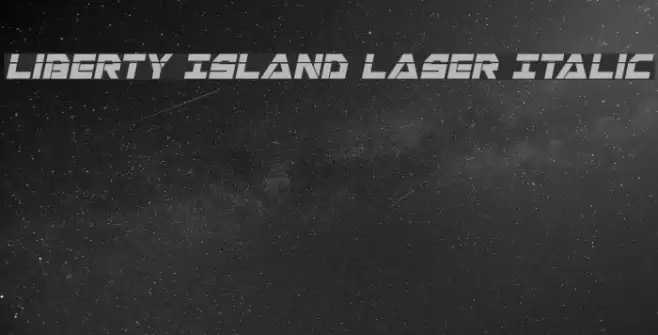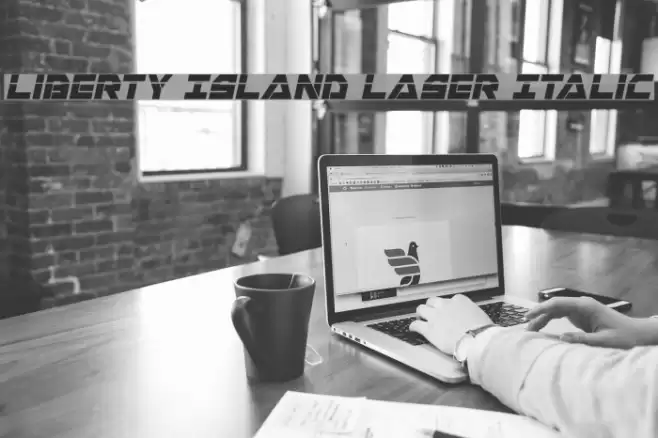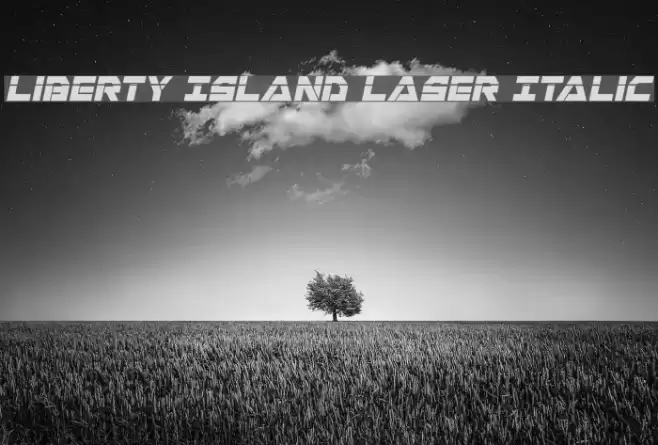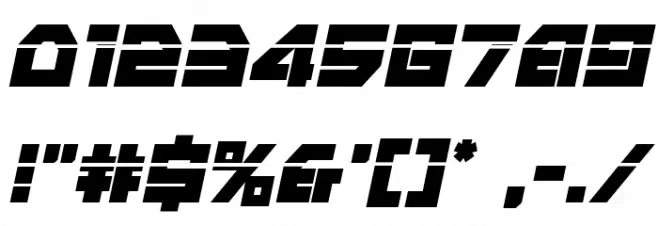
Liberty Island Laser Italic Font
Liberty Island Laser Italic Description
This font features a bold, futuristic design with angular, geometric shapes that give it a dynamic and energetic appearance. The characters are italicized, adding a sense of motion and speed. The sharp edges and distinct cuts within each letterform create a striking visual impact, making it ideal for attention-grabbing designs. The uppercase and lowercase letters maintain a consistent style, while the numerals and special characters complement the overall aesthetic. The font's unique style is reminiscent of digital or sci-fi themes, making it suitable for modern and tech-oriented projects.
A bold, futuristic italic font with angular, geometric shapes from Uncategorized fonts.
- Proposed Projects: Ideal for sci-fi movie posters, tech branding, video game titles, and futuristic event flyers.